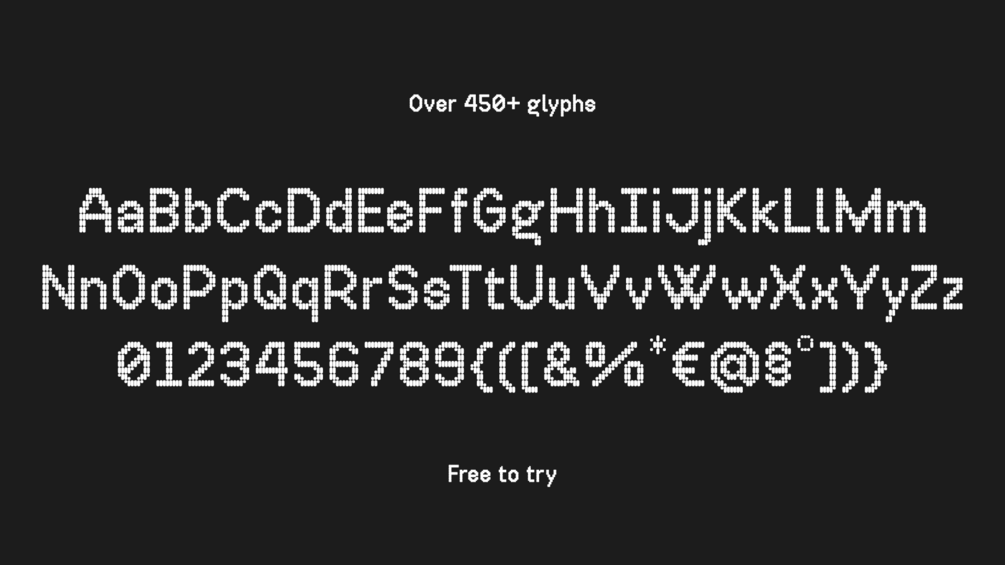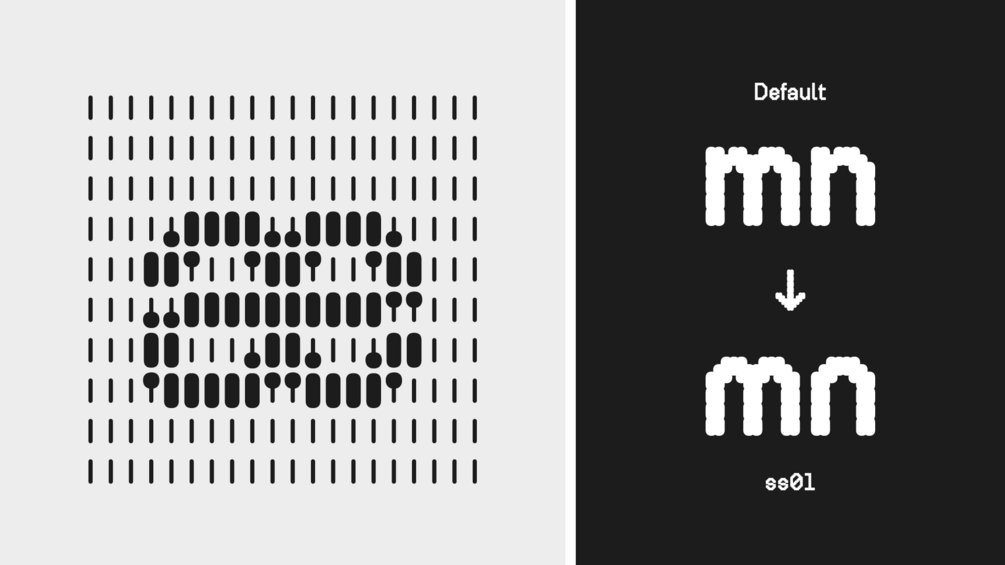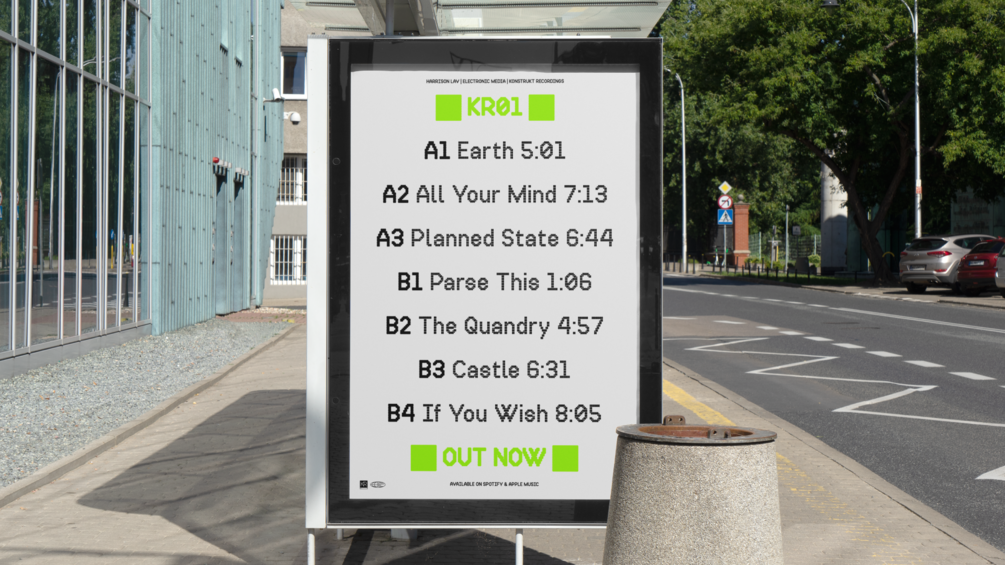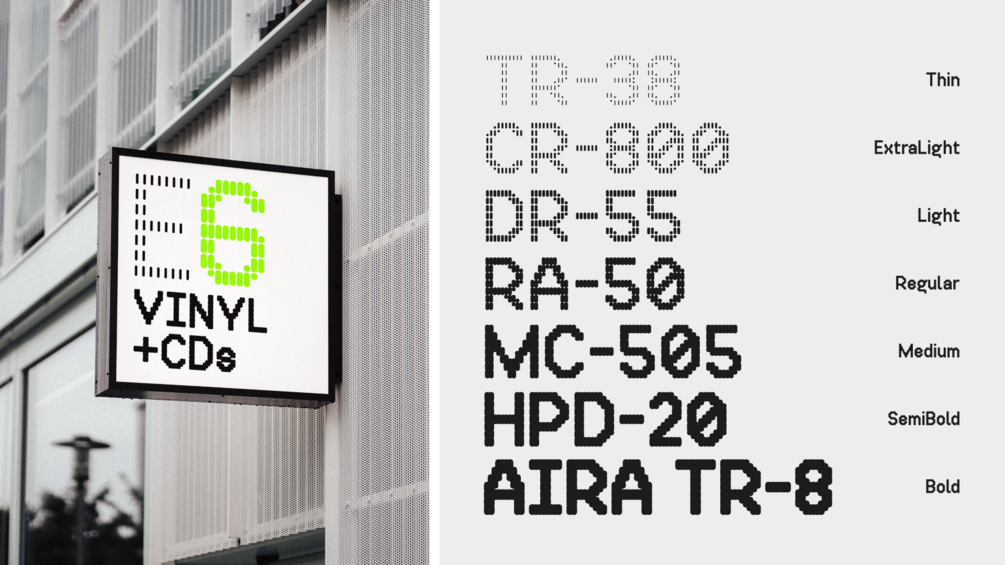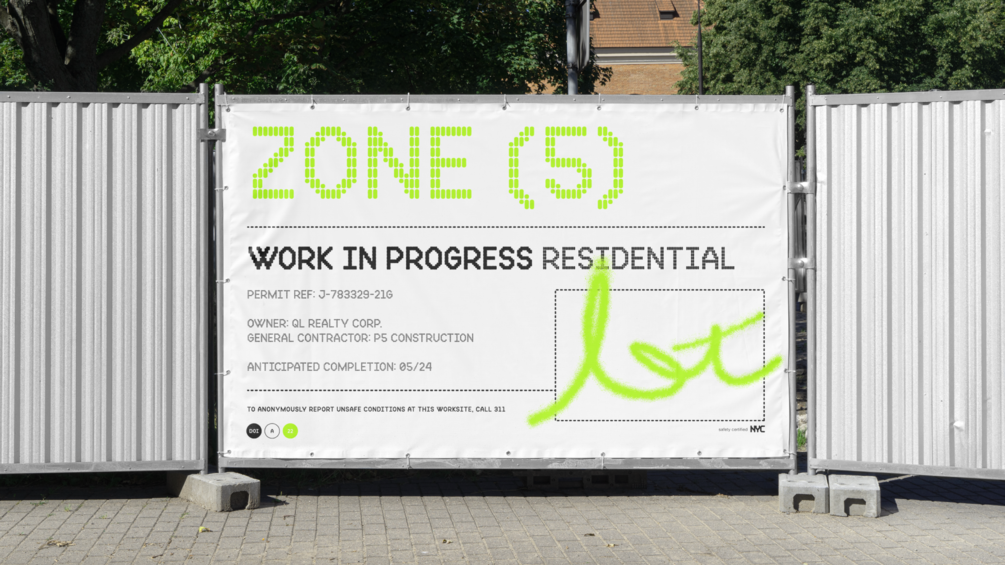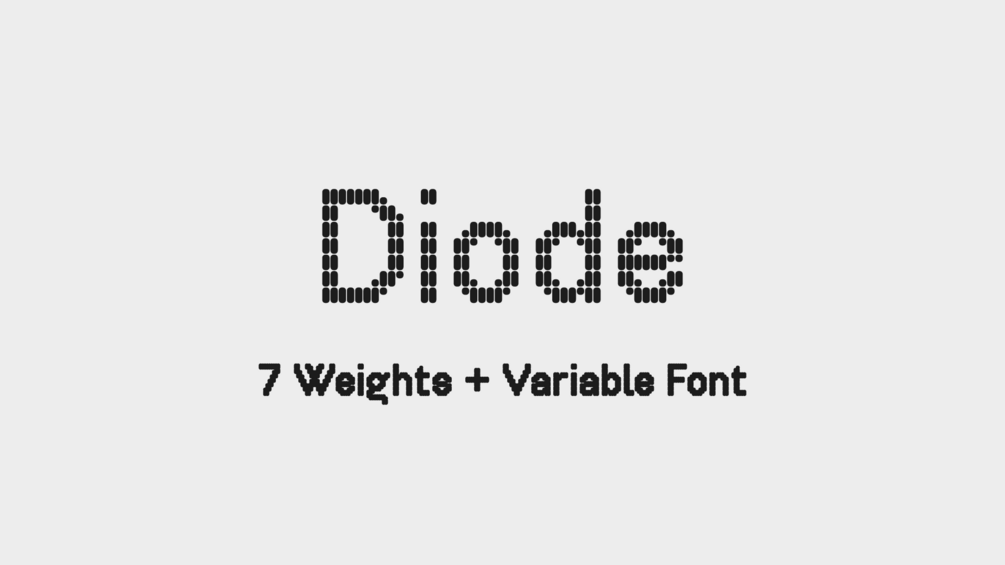
POI Diode
Diode is a display typeface constructed entirely using two shapes arranged on a grid. It is inspired by pixel fonts and LED displays. Use it to add a tech or futuristic look to your brand or product. Try out all of the 450+ glyphs for free before you buy!